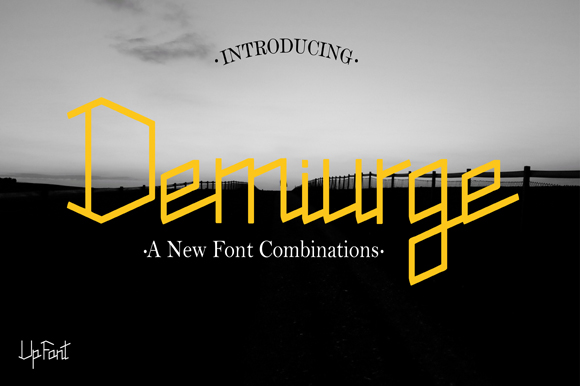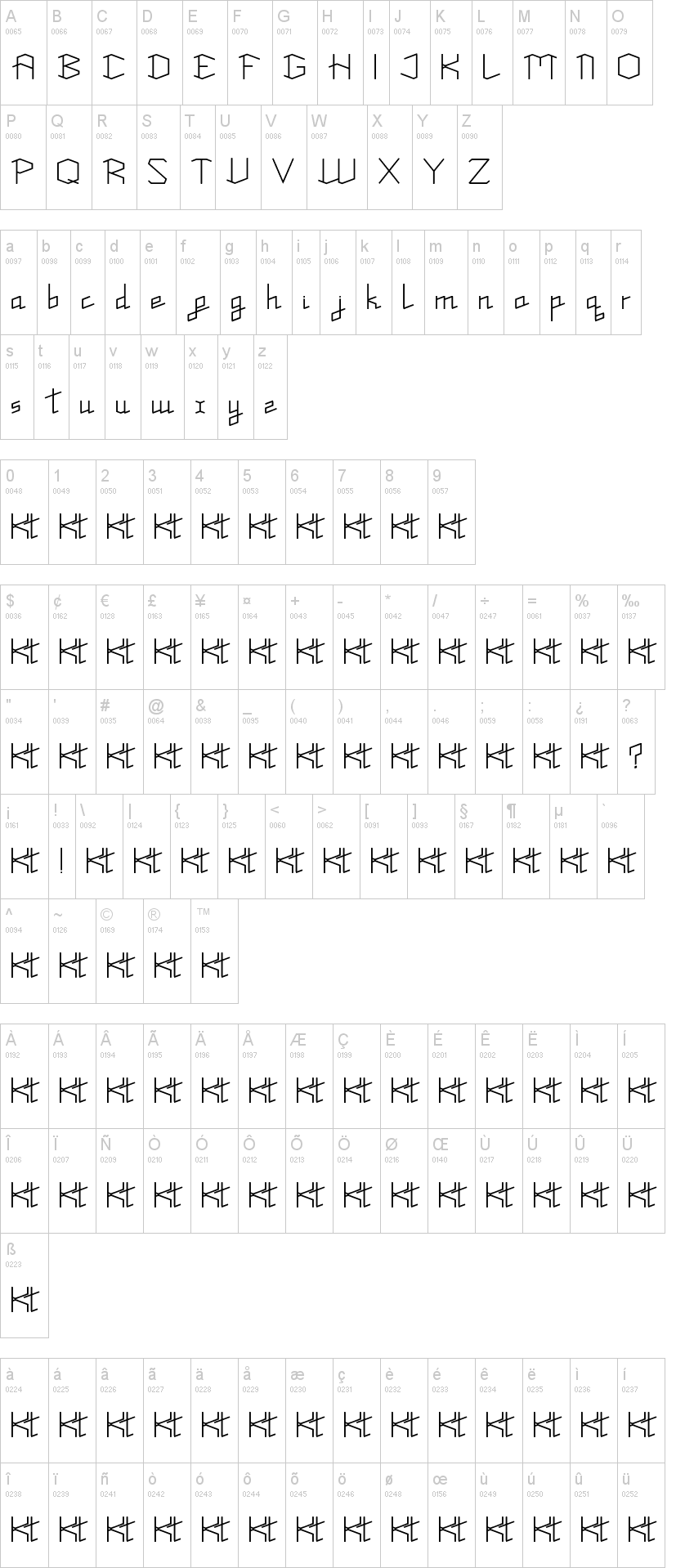
Note of the authorProudly offering our newest product Demiurge font! This font consists of 2 different 'script and sans' styles. These two beautiful fonts will be perfect to incorporate into your design.